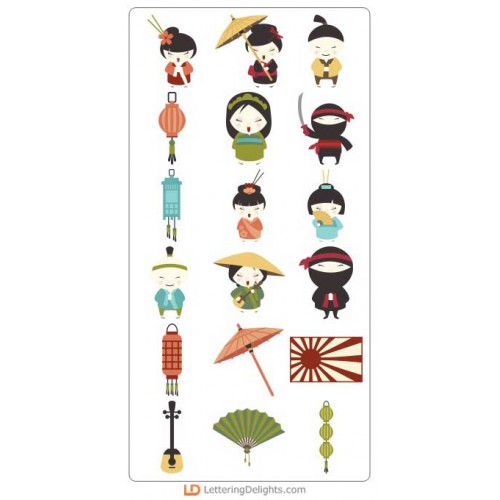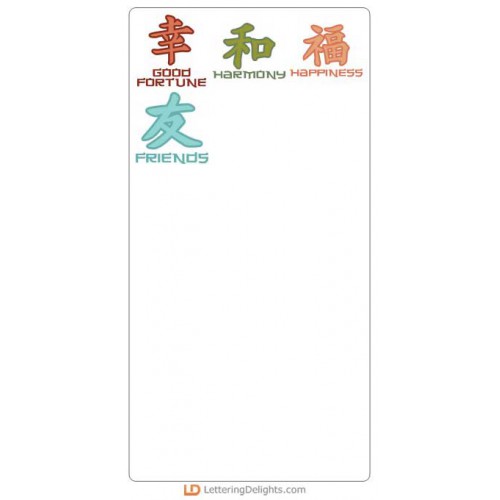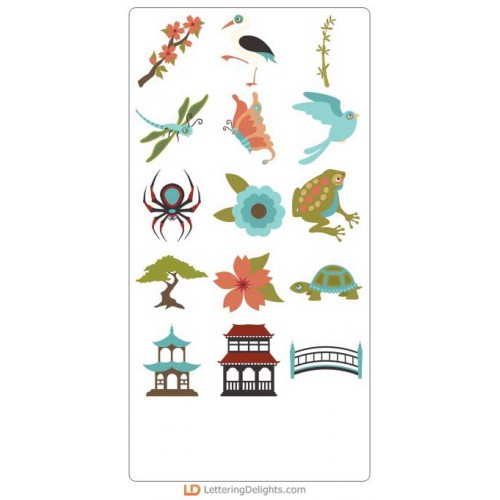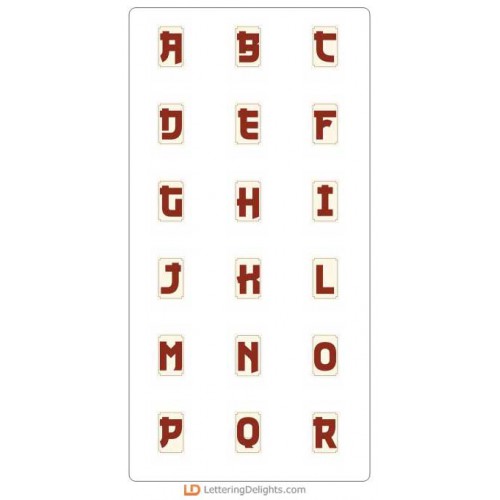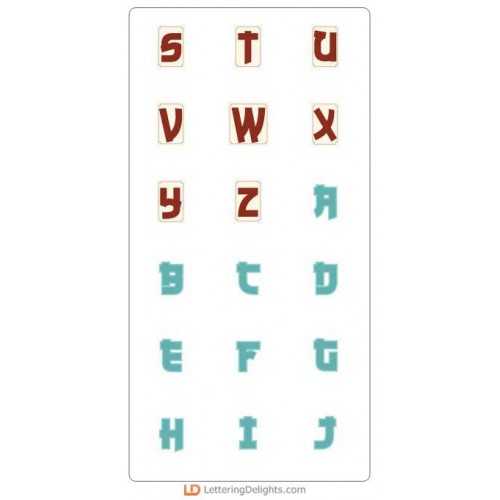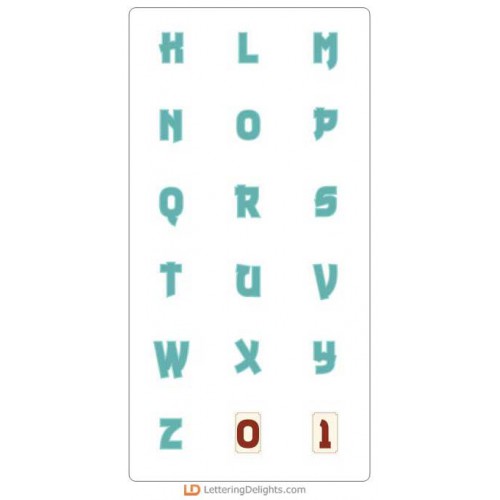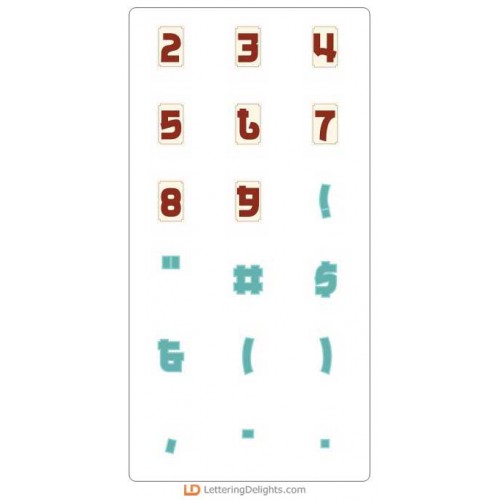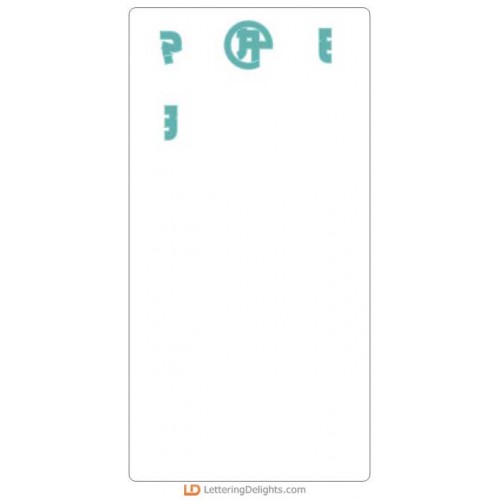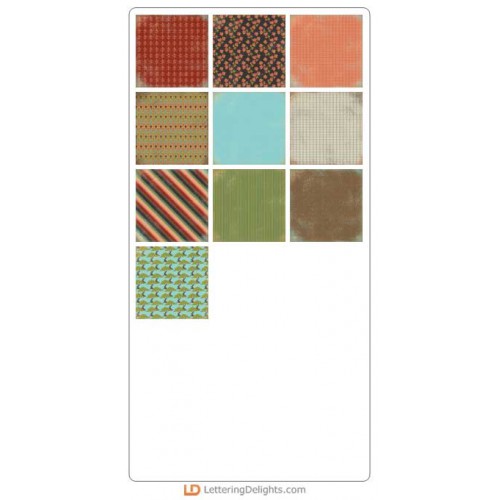
Japanese Yorokobi Collection
With beautiful Japanese influence, the Yorokobi Collection has many beautiful elements ranging from adorable geishas, beautiful papers, and a oriental influenced alphabet!